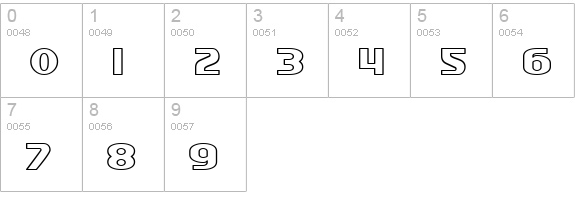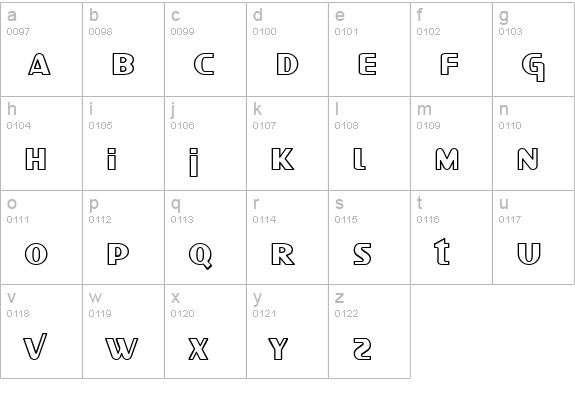
SF Intellivised Outline Font Details
SF Intellivised Outline font is a stunningly modern and futuristic typeface that combines sleek lines and sharp angles to create a truly captivating visual experience. Its edgy and sophisticated design makes it perfect for a wide range of projects, from futuristic branding to cutting-edge websites. The SF Intellivised Outline font is a versatile choice, with its clean and geometric letterforms providing a sense of order and precision. Its outline style adds depth and dimension, making each character appear as if it is floating effortlessly on the page. Not only does SF Intellivised Outline font boast an exceptional design, but it also offers a unique feature that sets it apart from other fonts - it is available for free! That's right, this exceptional typeface can be freely downloaded at FontsMarket.com. This allows designers and creatives of all backgrounds and budgets to have access to a high-quality font that will elevate their projects to new heights. Whether you're working on a sci-fi movie poster, a tech startup logo, or a sleek website design, SF Intellivised Outline font will undoubtedly make a lasting impression. Its modern and futuristic aesthetic, combined with its availability as a free download, makes it a must-have addition to any designer's toolkit. So, don't miss out on this incredible opportunity to enhance your projects with the SF Intellivised Outline font. Head over to FontsMarket.com today and start creating stunning designs that will leave a lasting impact.